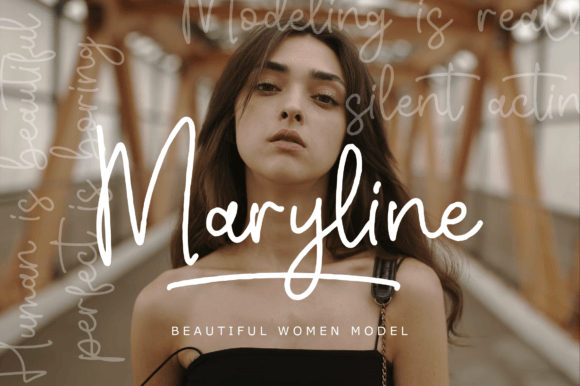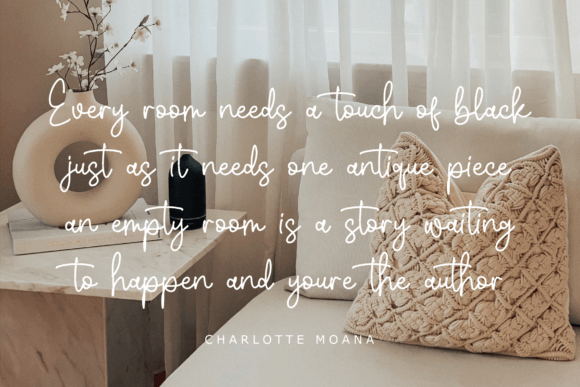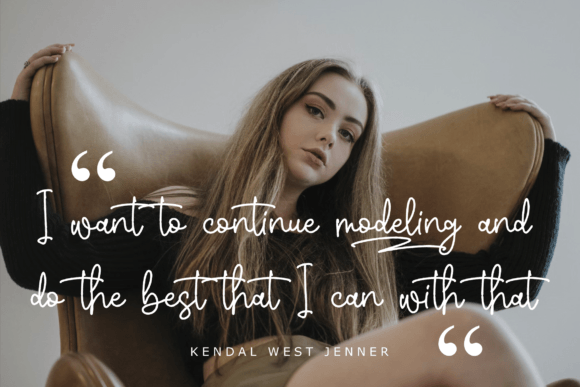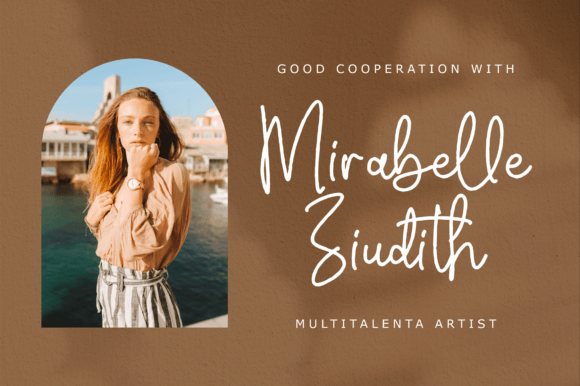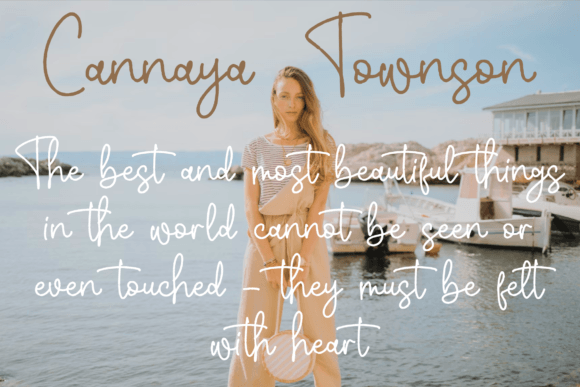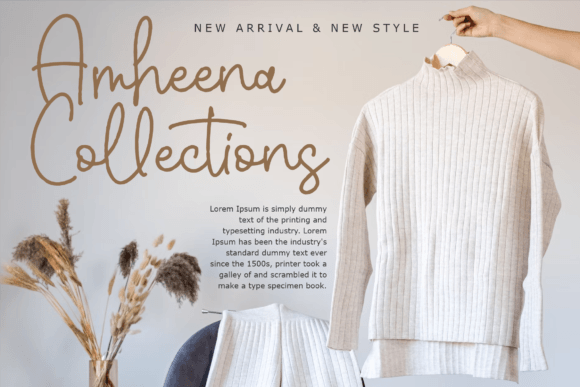
Introduction to Moulley Estelika Font
Moulley Estelika – Monoline Handwritten Font, suitable for any projects such as logos, branding projects, homeware designs, product packaging, mugs, quotes, posters, shopping bags, t-shirts, book covers, name cards, invitation cards, greeting cards, labels, photography, watermark, special events, and all your other lovely projects that need a beautiful script taste.
Key Features of Moulley Estelika Font
Why Choose Moulley Estelika Font?
Moulley Estelika Font offers exceptional quality and versatility, making it a valuable addition to your design toolkit. Whether you’re creating for personal projects or commercial use, Moulley Estelika Font delivers professional results.